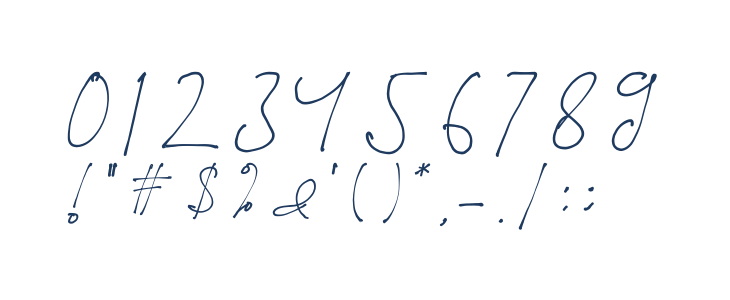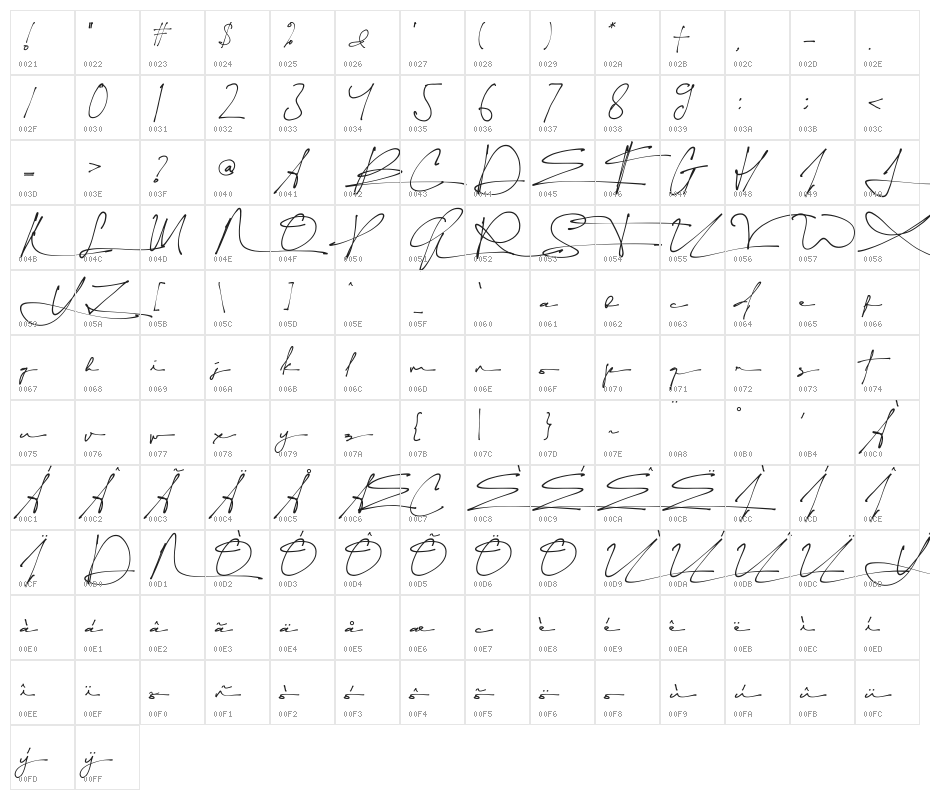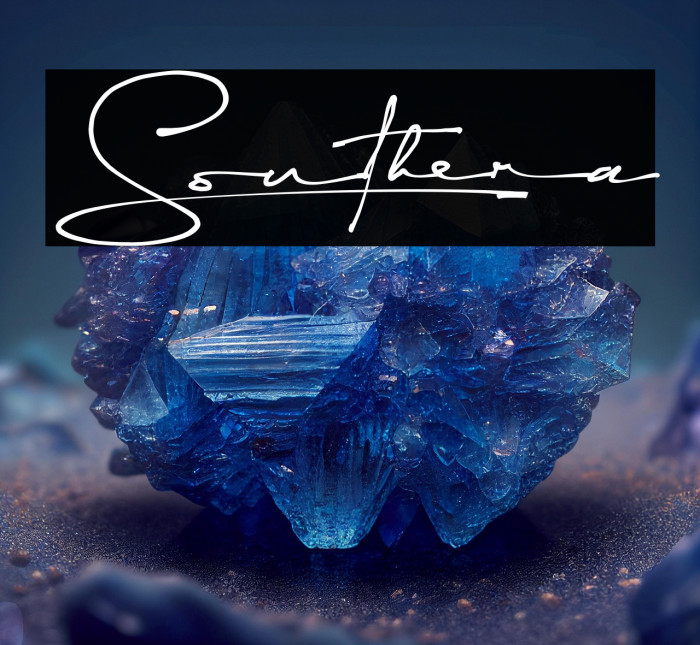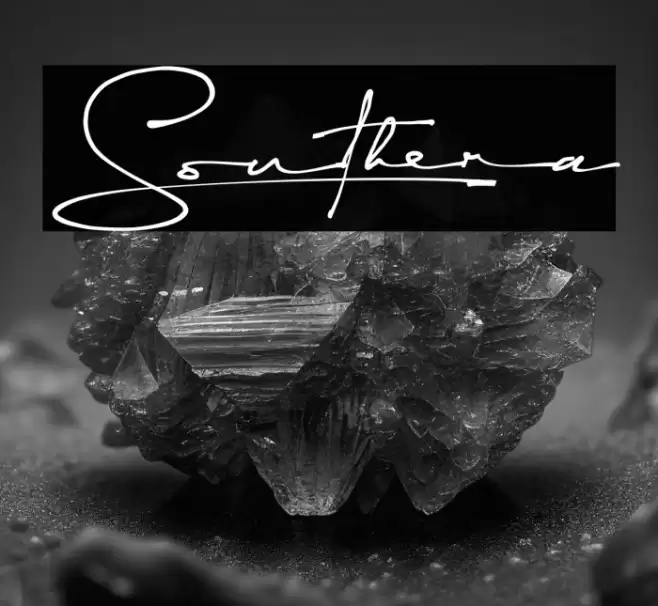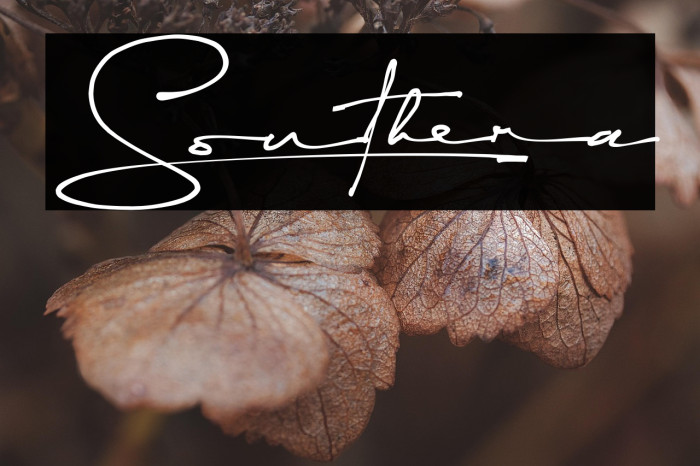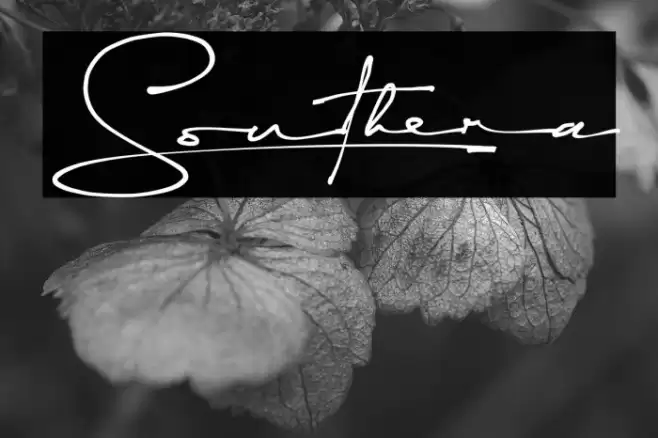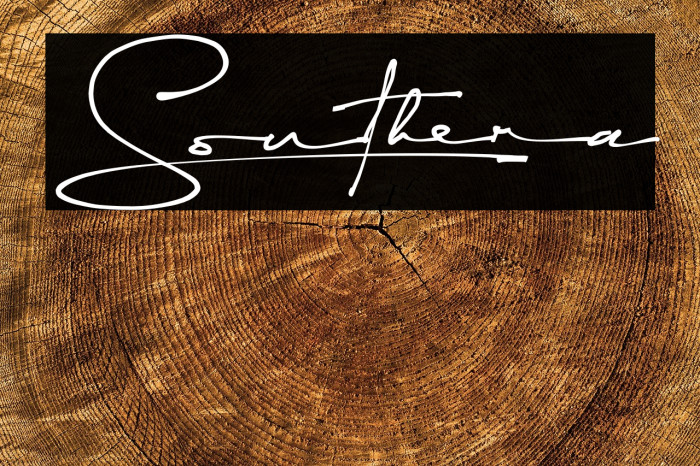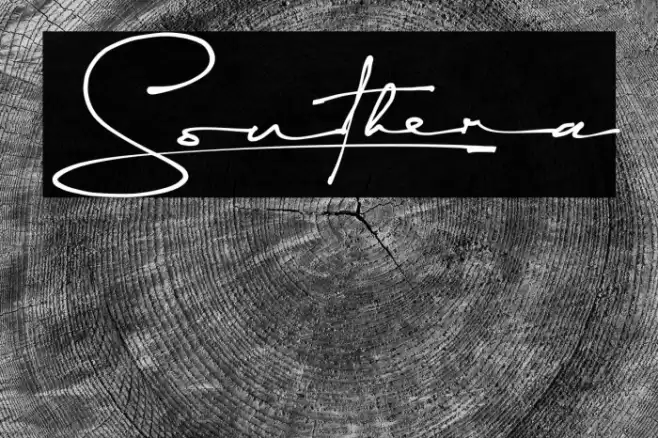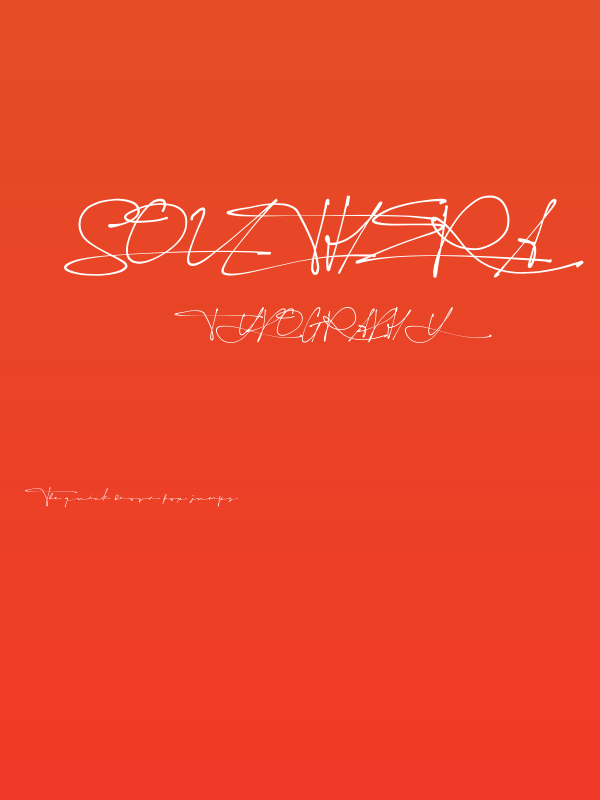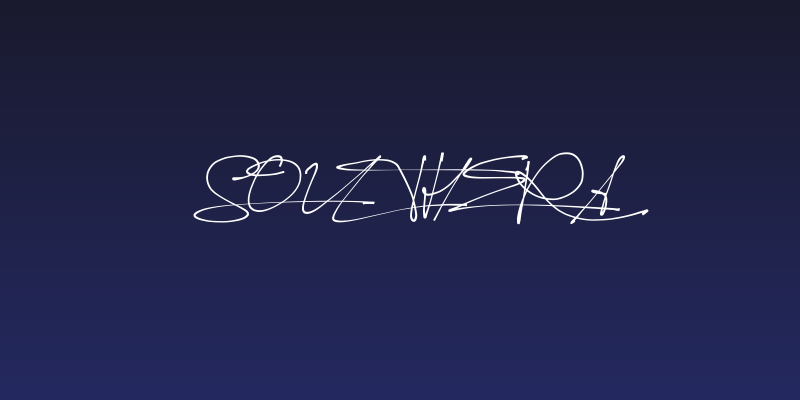
Southera Font
Southera Description
This font features a dynamic and expressive handwritten style, characterized by fluid, cursive strokes that convey a sense of elegance and spontaneity. The uppercase letters are bold and sweeping, with a distinct flair that adds personality to each character. The lowercase letters maintain a consistent flow, enhancing readability while preserving the artistic essence. Numbers and special characters are crafted with the same attention to detail, ensuring a cohesive look across all elements. The overall design is reminiscent of personal handwriting, making it ideal for projects that require a personal touch.